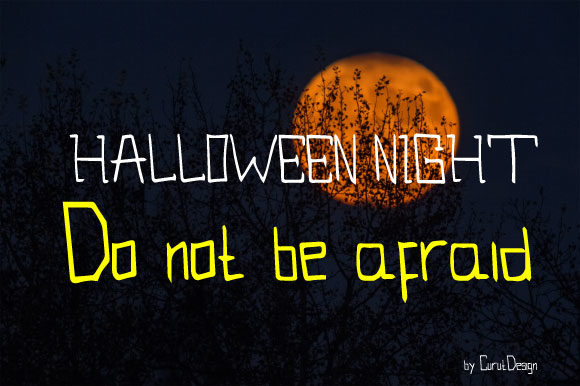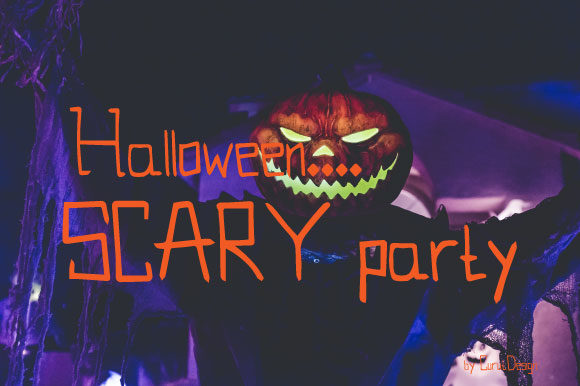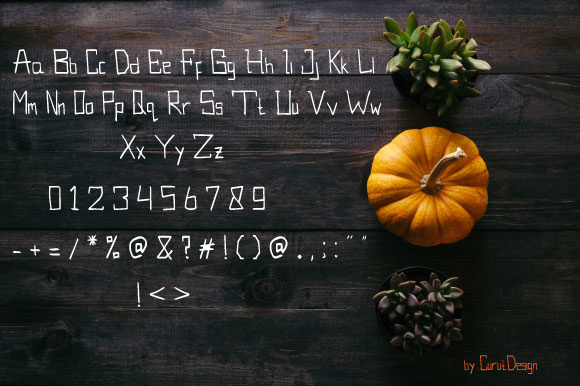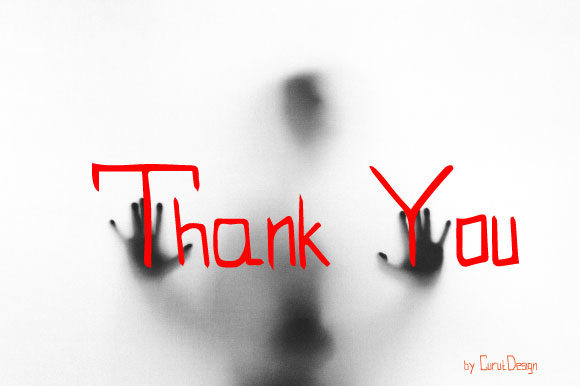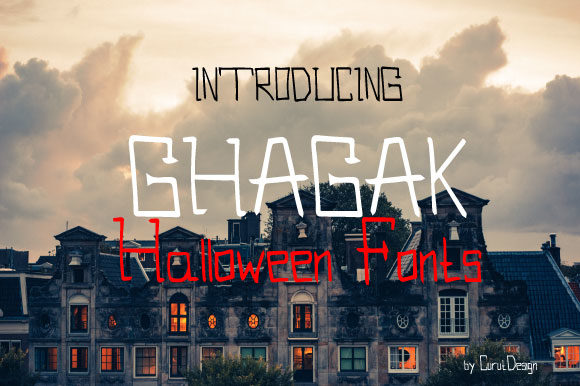
Ghagak Font: The Spookiest Display Font for Your Halloween Projects
Are you a designer or crafter looking for a font that will add a touch of spookiness to your Halloween projects? Look no further than the Ghagak Font! This display font is specifically designed to bring a sense of eeriness and weirdness to your designs, making it the perfect fit for any Halloween-themed project.
What is Ghagak Font?
Ghagak Font is a unique and quirky display font that is sure to grab attention. Its irregular and distressed letterforms give it a haunting quality that is perfect for creating spooky and eye-catching designs. Whether you’re working on a Halloween-themed poster, invitation, or social media graphic, Ghagak Font is sure to add a touch of macabre whimsy.
Key Features of Ghagak Font
• Spine-tingling design: Ghagak Font features irregular and distressed letterforms that give it a spooky and eerie feel.
• Perfect for Halloween projects: This font is specifically designed for Halloween-themed projects, making it a must-have for designers and crafters.
• High-quality design: The font is carefully crafted to ensure that it is clear and legible, even at small sizes.
How to Use Ghagak Font in Your Designs
Using Ghagak Font in your designs is easy! Here are a few tips to get you started:
• Pair it with a simple font: To create visual interest, pair Ghagak Font with a simple and clean font.
• Experiment with colors: Ghagak Font looks great in a variety of colors, from bold and bright to muted and pastel.
• Add some spooky graphics: To really make your design pop, add some spooky graphics, such as bats, spiders, or jack-o-lanterns.
Why Designers and Crafters Love Ghagak Font
Designers and crafters love Ghagak Font for a variety of reasons:
• Unique and quirky design: Ghagak Font is a one-of-a-kind font that adds a touch of personality to any design.
• Perfect for seasonal designs: Ghagak Font is specifically designed for Halloween-themed projects, making it a must-have for designers and crafters who create seasonal designs.
Tips and Tricks for Getting the Most Out of Ghagak Font
Here are a few tips and tricks for getting the most out of Ghagak Font:
• Use it sparingly: Because Ghagak Font is a display font, it’s best to use it sparingly to create visual interest.
• Experiment with different sizes: Ghagak Font looks great at a variety of sizes, from small and subtle to large and bold.
• Combine it with other fonts: To create a unique and interesting design, combine Ghagak Font with other fonts and graphics.
If you’re looking for a spooky and weird display font to add to your Halloween projects, look no further than Ghagak Font! With its irregular and distressed letterforms, this font is sure to grab attention and add a touch of macabre whimsy to your designs. Whether you’re a designer or crafter, Ghagak Font is a must-have for any Halloween-themed project.